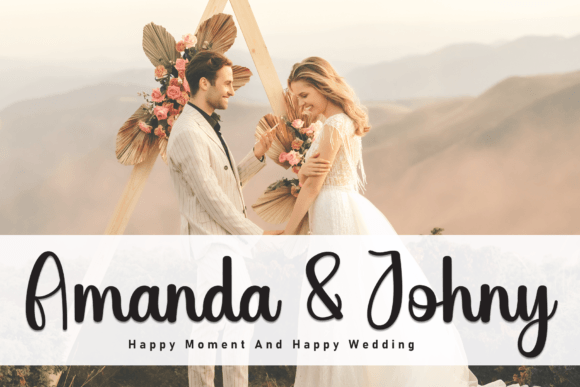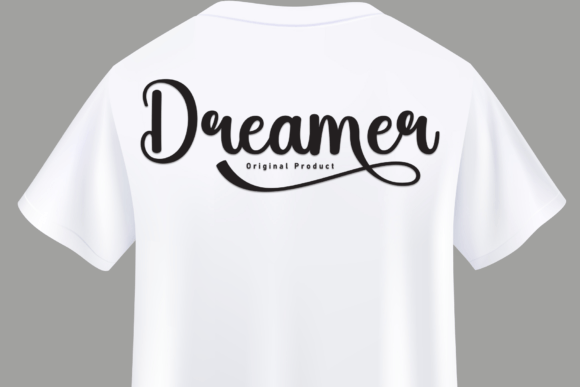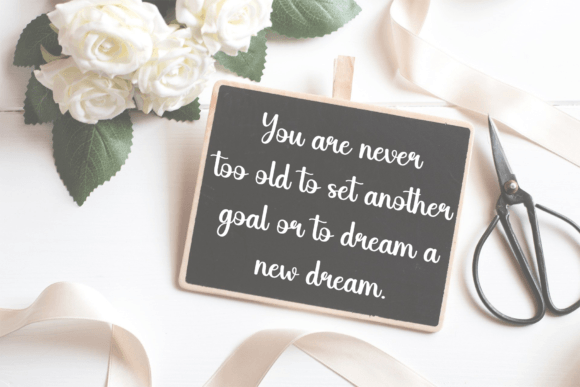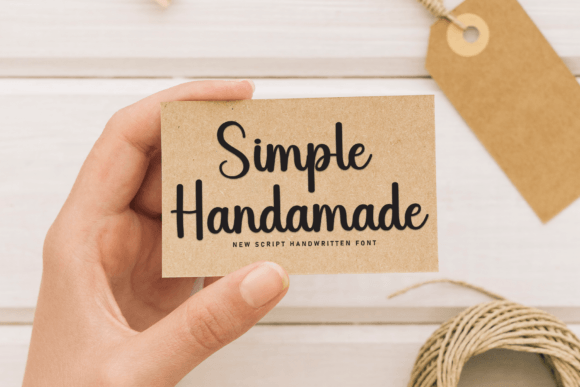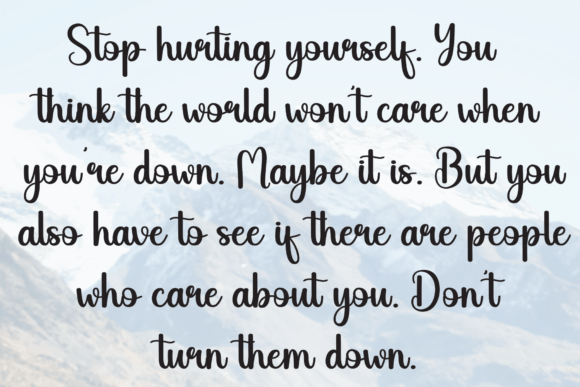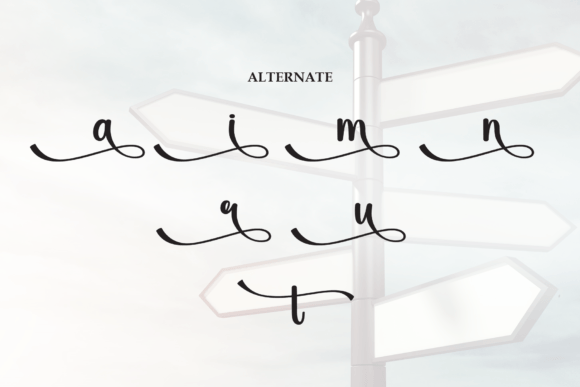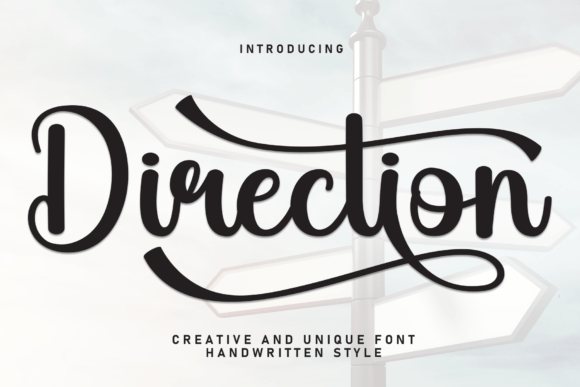
Introducing Direction Font: Add a Sweet and Friendly Touch to Your Designs
Are you looking for a font that can add a playful and charming touch to your designs? Look no further than Direction Font! This beautiful handwritten display font is perfect for creating eye-catching wedding invitations, greeting cards, and other creative projects that require a personal and friendly feel.
What Makes Direction Font Special?
Direction Font is a sweet and friendly handwritten display font that is sure to capture the hearts of designers and crafters alike. Its cute and fun design makes it ideal for adding a touch of whimsy to any project. Whether you’re creating wedding invitations, birthday cards, or social media graphics, Direction Font is the perfect choice.
Key Features of Direction Font
- Handwritten Display Font: Direction Font is a beautiful handwritten display font that is perfect for creating eye-catching headings and titles.
- Cute and Fun Design: The font’s cute and fun design makes it ideal for adding a playful touch to any project.
- Perfect for Wedding Invitations: Direction Font is perfect for creating beautiful and unique wedding invitations that will set the tone for the big day.
- Easy to Read: The font is easy to read, making it perfect for creating designs that require a personal touch.
- Versatile: Direction Font can be used for a variety of design projects, including greeting cards, social media graphics, and more.
How to Use Direction Font in Your Designs
Using Direction Font in your designs is easy! Here are a few tips to get you started:
- Pair it with Other Fonts: Direction Font looks great when paired with other fonts, such as serif or sans-serif fonts.
- Use it for Headings: The font is perfect for creating eye-catching headings and titles.
- Add a Personal Touch: Use Direction Font to add a personal touch to your designs, such as in wedding invitations or greeting cards.
- Experiment with Colors: The font looks great in a variety of colors, so don’t be afraid to experiment and find the perfect color for your design.
Benefits of Using Direction Font
There are many benefits to using Direction Font in your designs. Here are a few:
- Unique and Eye-Catching: The font is unique and eye-catching, making it perfect for creating designs that stand out.
- Easy to Read: The font is easy to read, making it perfect for creating designs that require a personal touch.
- Versatile: Direction Font can be used for a variety of design projects, including wedding invitations, greeting cards, and more.
- Time-Saving: The font is pre-designed, saving you time and effort in creating your own font from scratch.
Who Can Benefit from Using Direction Font?
Direction Font is perfect for a variety of designers and crafters, including:
- Wedding Designers: The font is perfect for creating beautiful and unique wedding invitations.
- Graphic Designers: Direction Font is a great addition to any graphic designer’s toolkit.
- Crafters: The font is perfect for crafters who want to add a personal touch to their projects.
- Social Media Managers: Direction Font can be used to create eye-catching social media graphics.